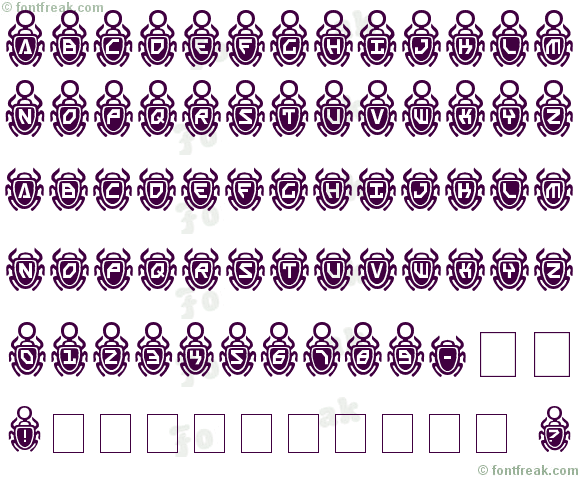
Scarab Border
Scarab Solid
Scarab
About Scarab Border
The Scarab Border font, designed by Daniel Zadorozny, is a unique decorative typeface that falls into the category of dingbats. Created in 1999, this font features intricate designs inspired by the scarab beetle, a symbol of transformation and protection in ancient cultures. The font showcases a solid stroke weight with a consistent line thickness, allowing for clear visibility while maintaining its decorative essence. The characters are well-spaced, contributing to a balanced look that enhances its visual appeal.
The Scarab Border font is perfect for a variety of creative applications. It can be effectively utilized in wedding invitations, where its ornate designs can add a touch of elegance and whimsy. Additionally, it works wonderfully for themed party decorations, such as for Egyptian or archeological events, providing an engaging visual element. Graphic designers may find it ideal for creating eye-catching movie posters or promotional materials, where the unique border can frame important information and draw attention. Restaurant menus featuring ethnic or specialty cuisine can also benefit from the font's distinctive style, enhancing the dining experience.
The target audience for the Scarab Border font includes graphic designers, small business owners, and content creators looking to add a unique flair to their projects. Its free availability makes it accessible for those on a budget while still seeking high-quality design elements.
What sets the Scarab Border font apart is its ability to blend artistic flair with functionality. The intricate designs not only serve as decorative elements but also invite curiosity and engagement from viewers. For those interested in elevating their designs, the Scarab Border font free download offers an excellent opportunity to incorporate a distinctive and culturally rich element into their work.